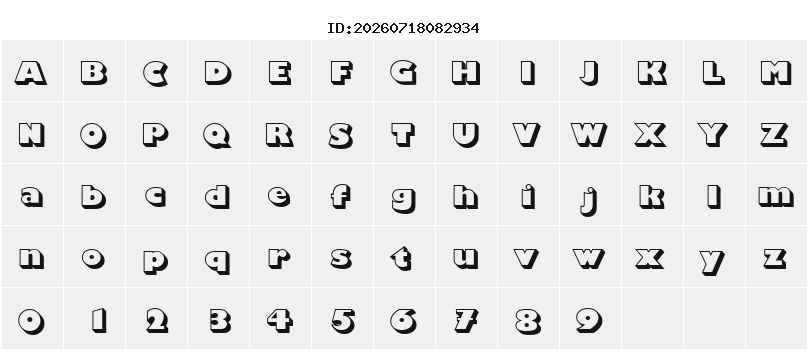
Chantilly-Display-Shaded Preview
• Font Name: Chantilly-Display-Shaded
• Full Font Name: Chantilly-Display-Shaded-Regular
• Designer: SoftMaker Software GmbH
• Manufacturer: SoftMaker Software GmbH
About Chantilly-Display-Shaded.ttf
Chantilly-Display-Shaded.ttf is a modern, elegant sans-serif font designed for ultimate readability and visual harmony. Perfect for branding, headlines, web design, and print materials.